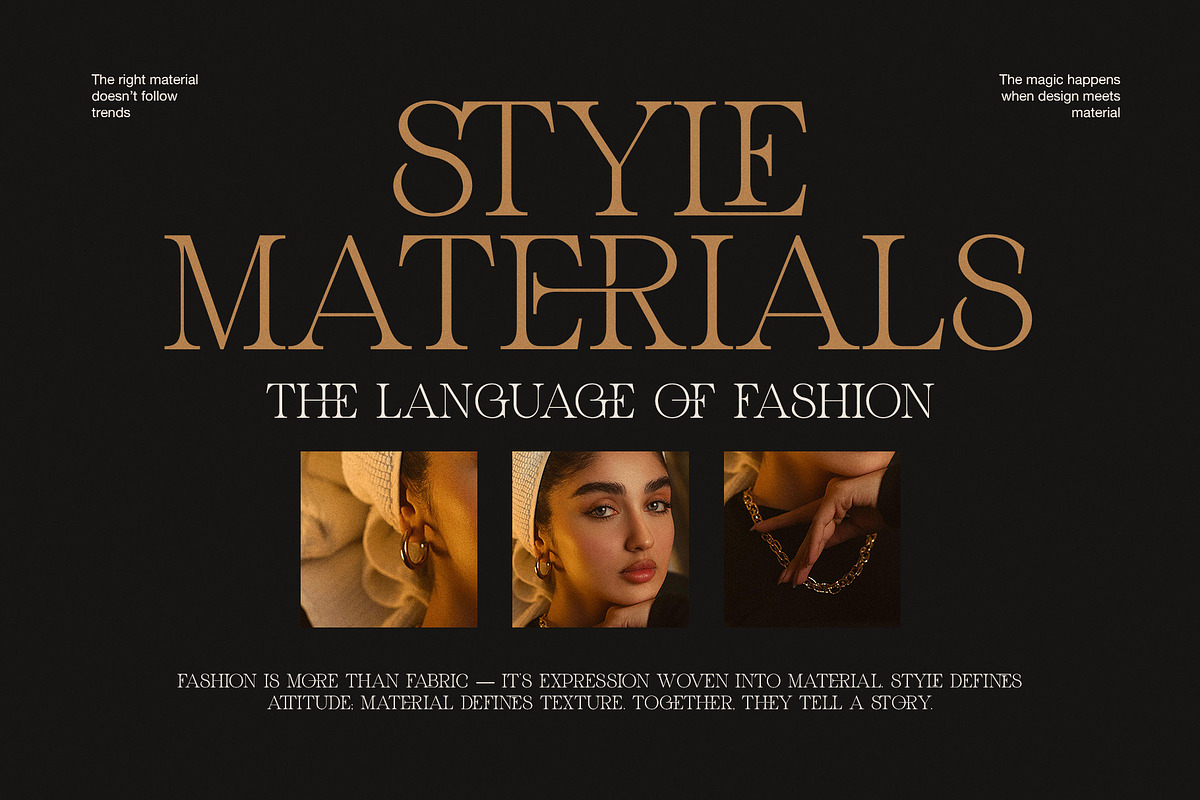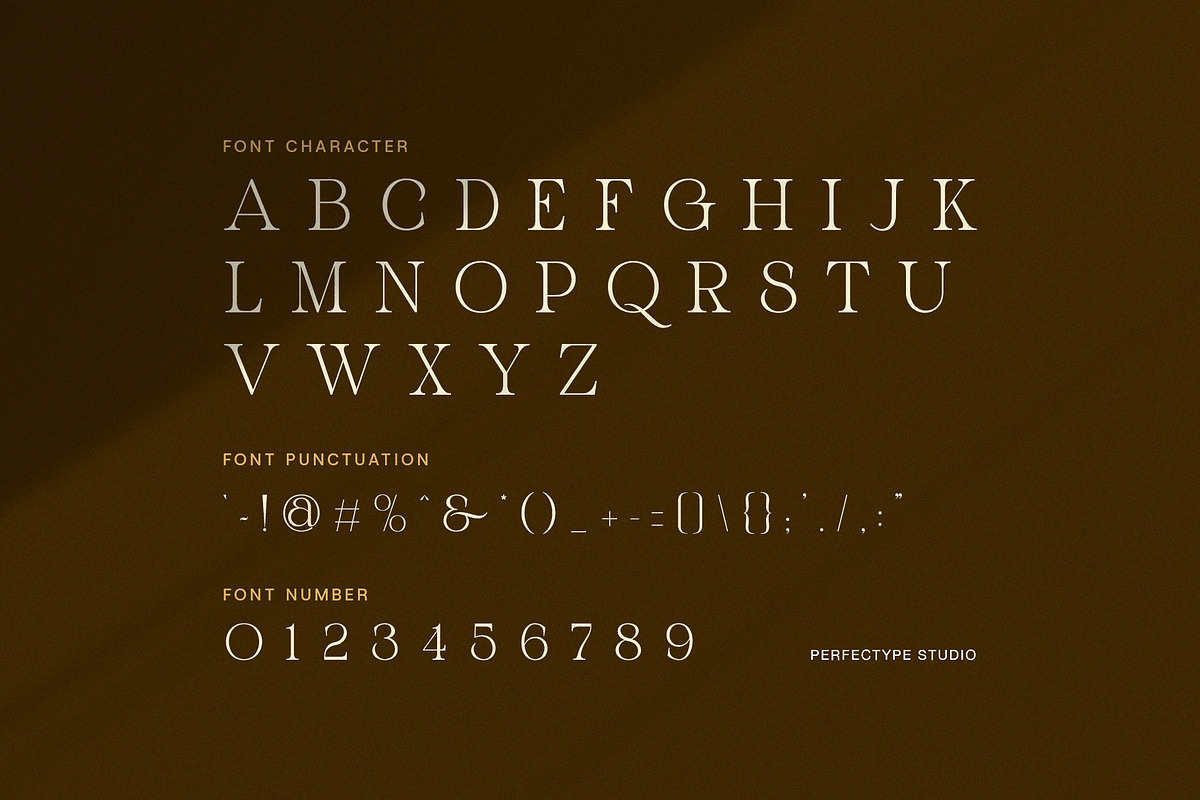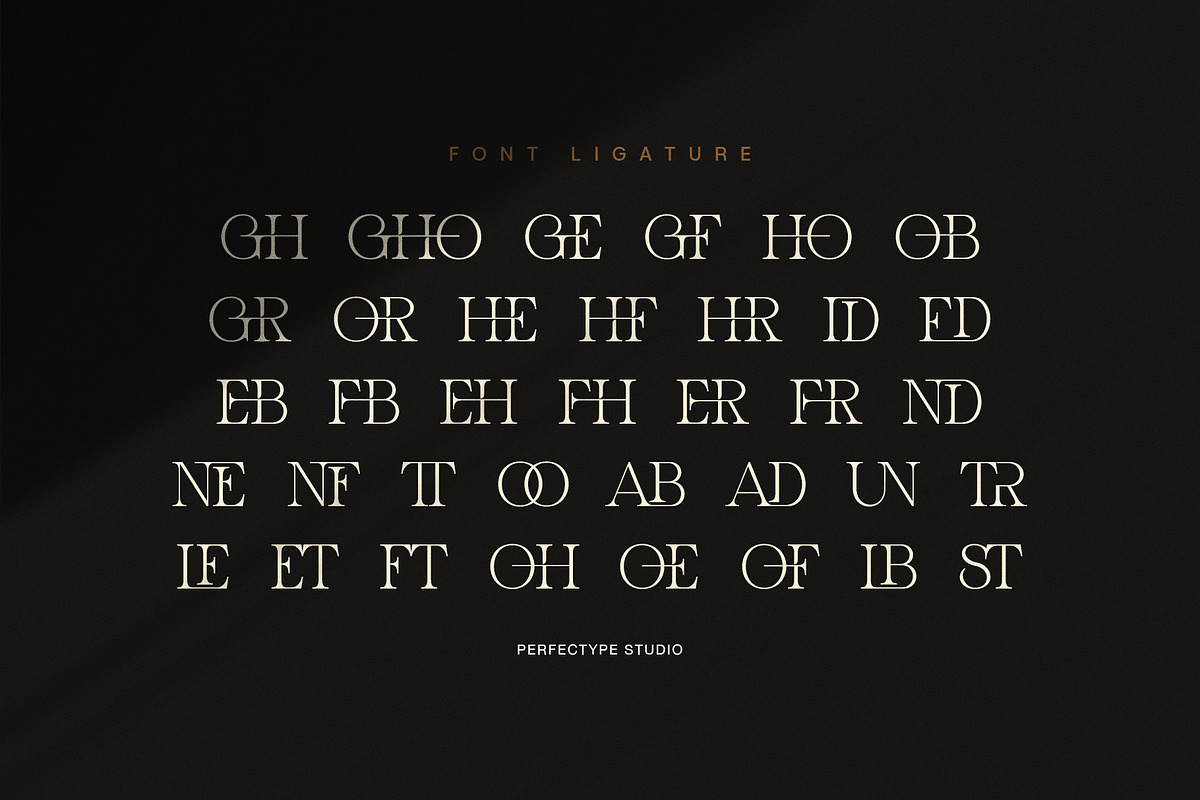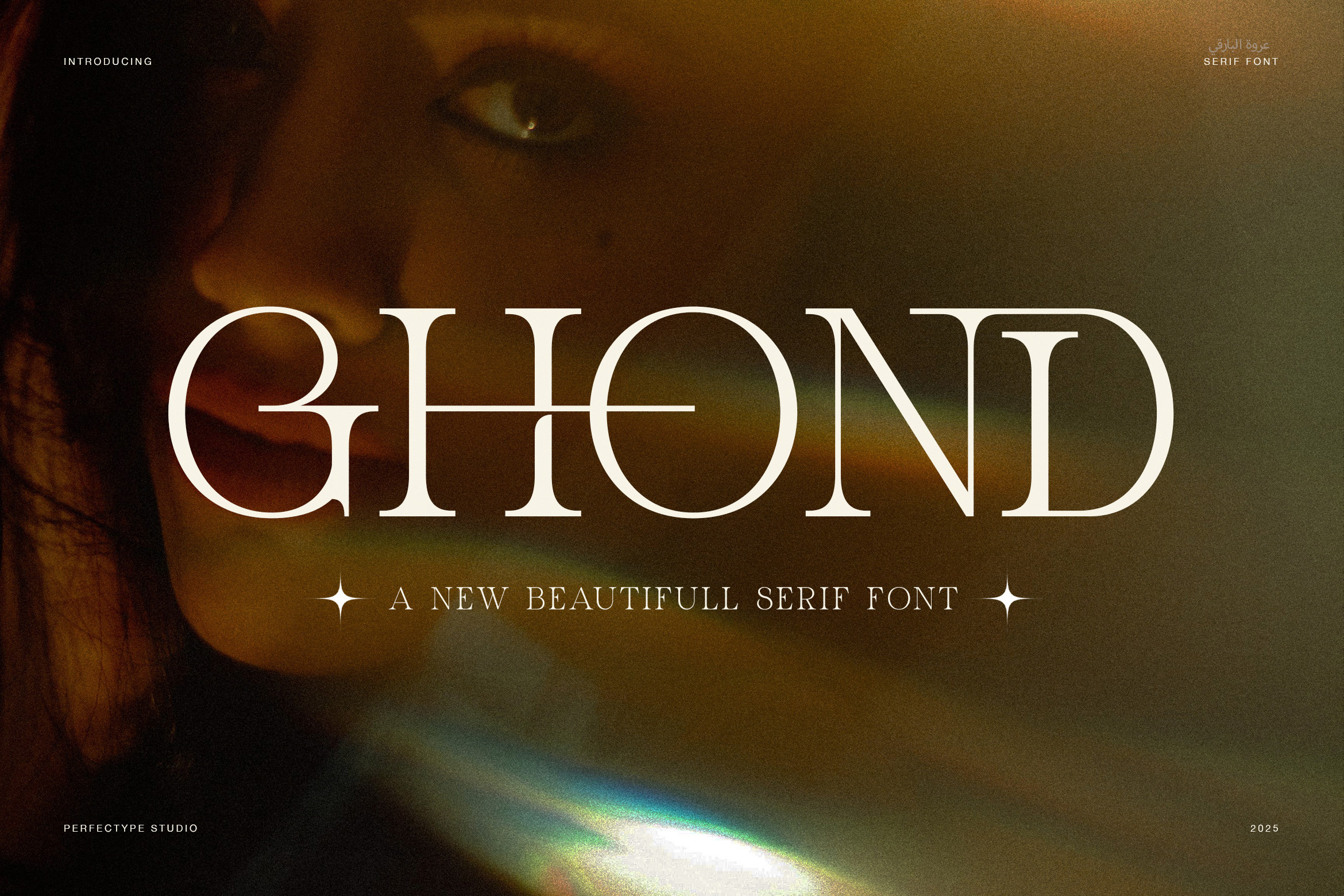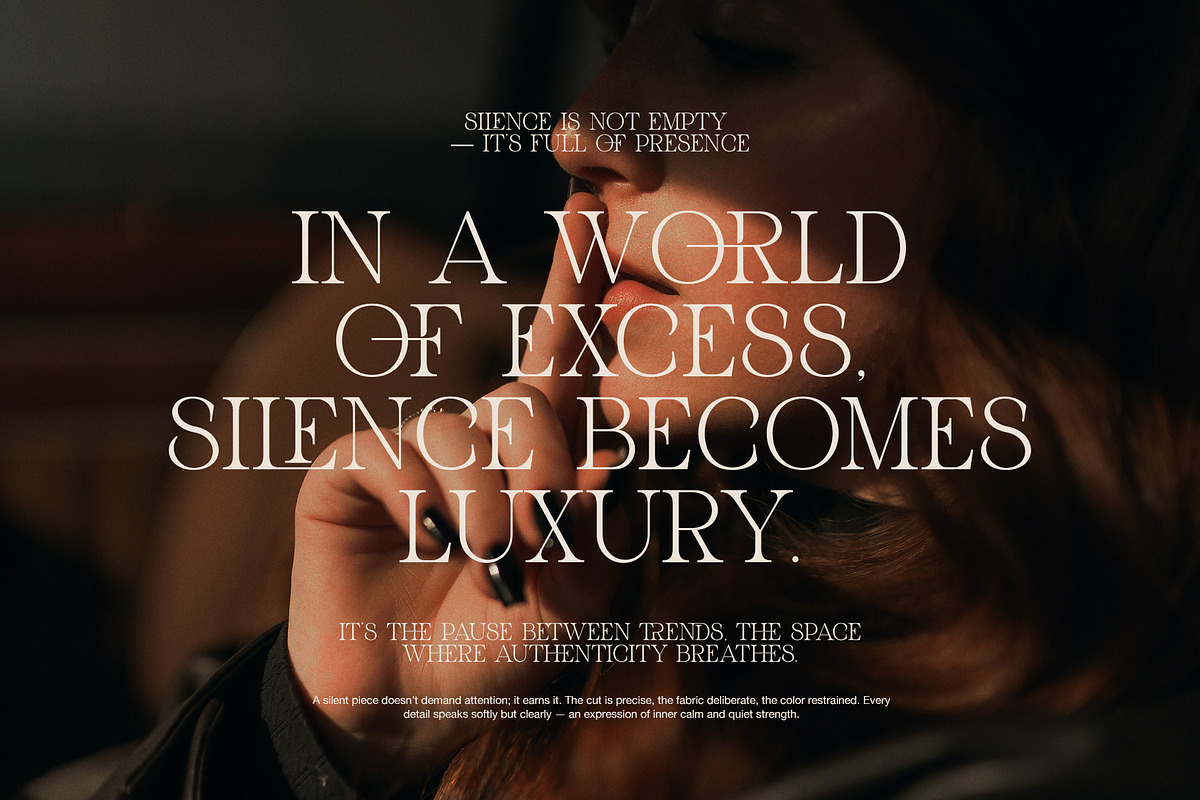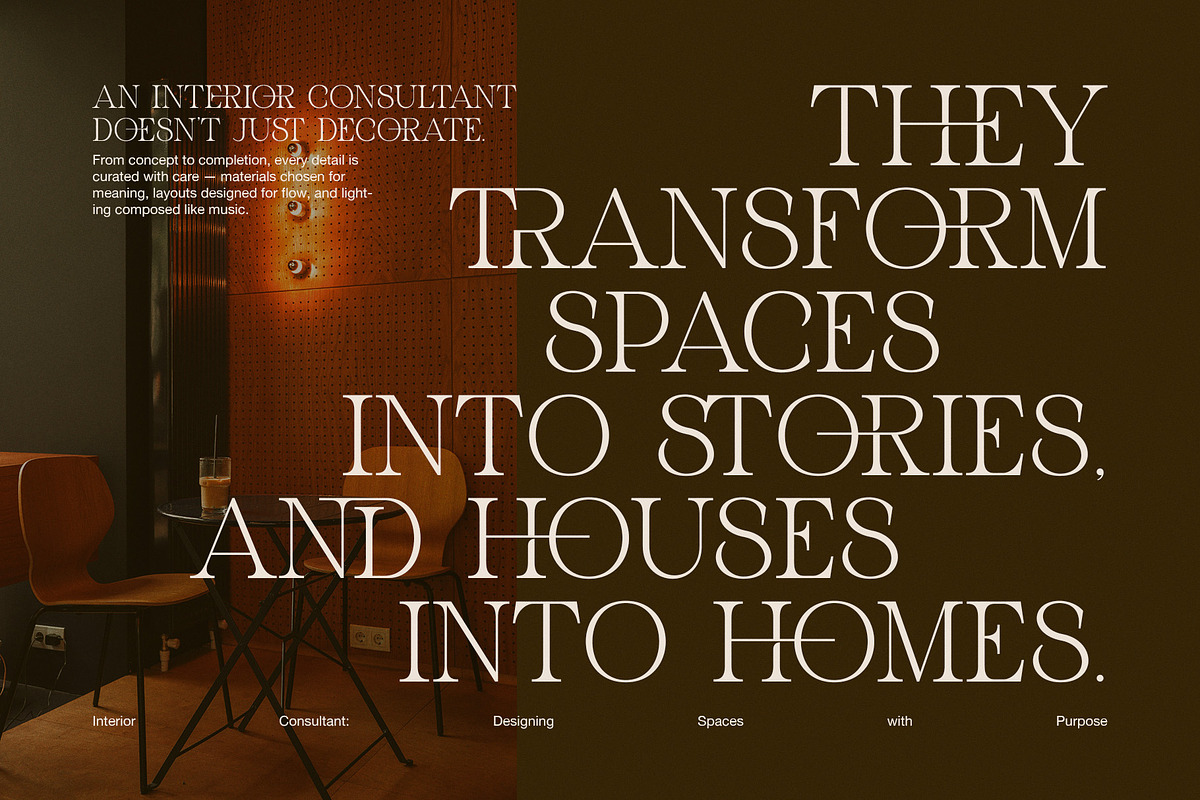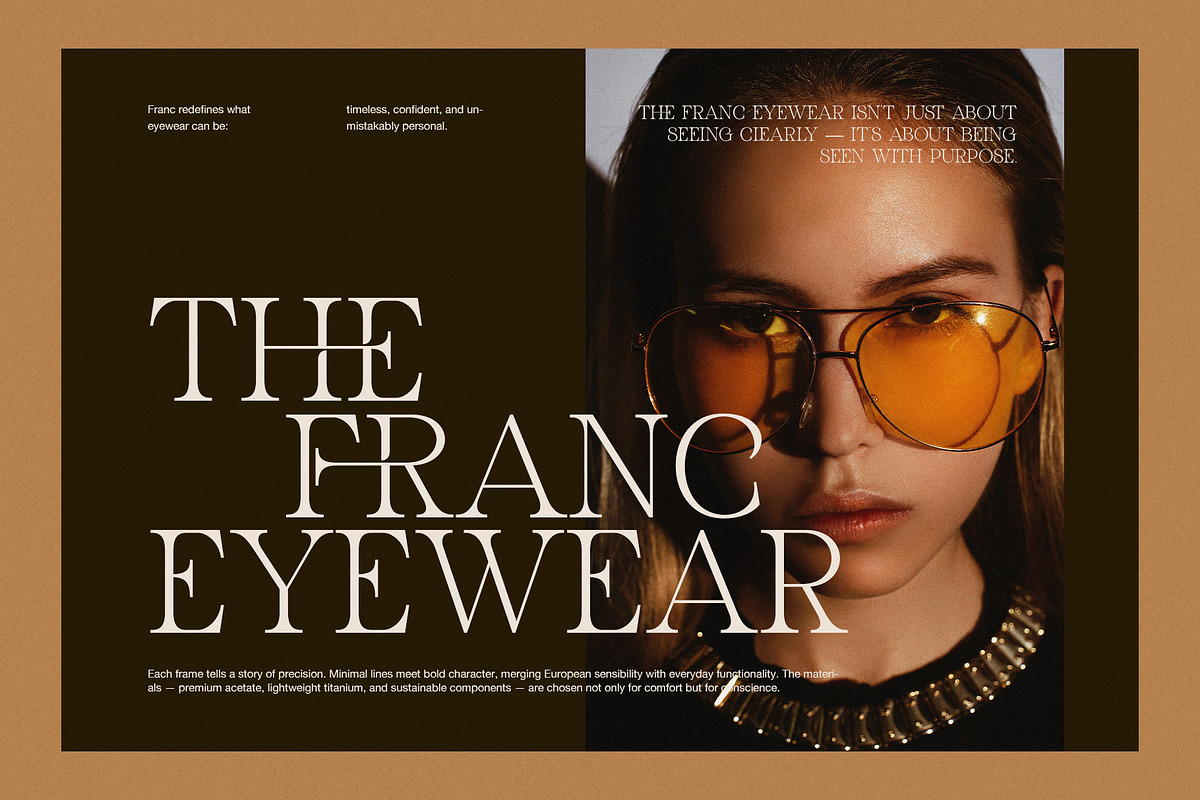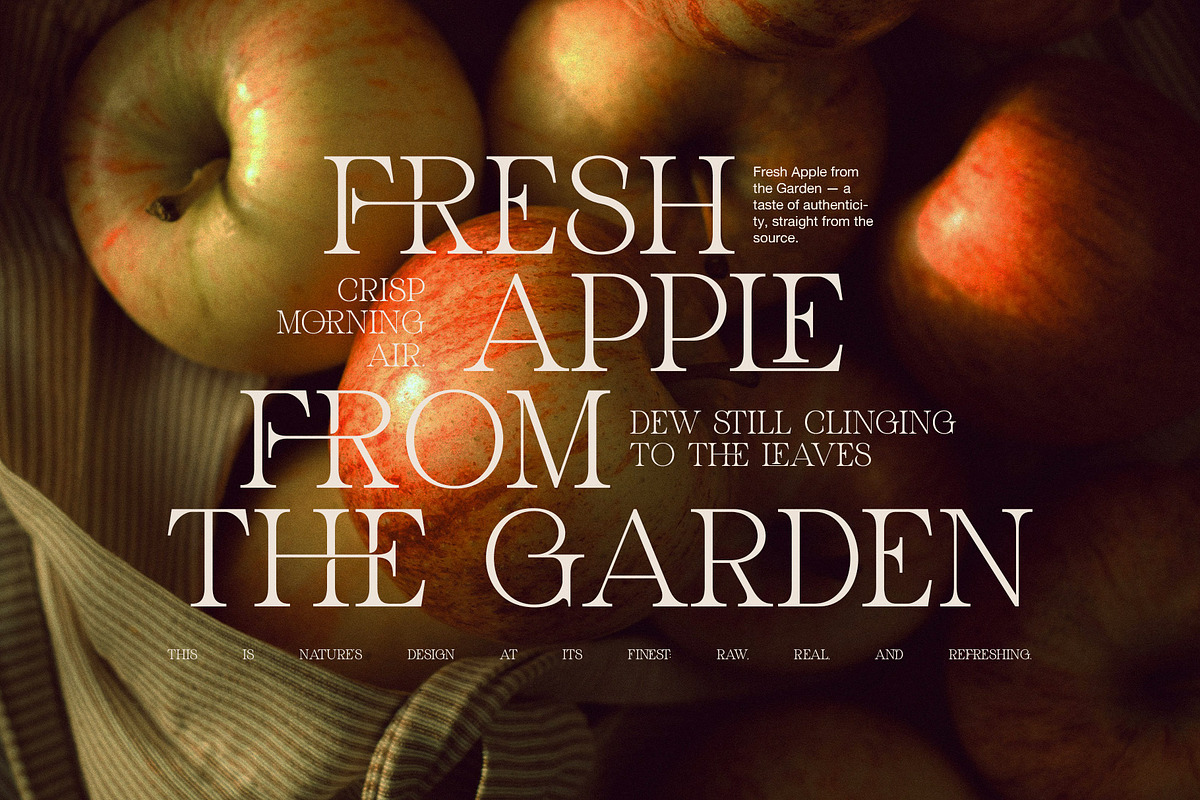
Ghond Modern Elegant Serif Font
Ghond is a modern elegant serif font that combines luxury, minimalism, and precision. Each letterform features graceful curves and geometric balance, making it perfect for designers seeking a refined, high-end aesthetic. The font’s clean structure and unique ligatures give it a distinctive look that enhances sophistication and style.
Because of its versatility, Ghond Serif Font fits beautifully in a wide range of design applications. It adds elegance to brand identities, magazine layouts, and luxury packaging while maintaining perfect readability. Moreover, its smooth proportions and balanced serifs make it ideal for both digital and print use.
You can use Ghond in projects that require timeless charm and modern edge:
Luxury Branding – perfect for fashion, architecture, and jewelry.
Editorial Design – ideal for magazine titles, articles, and headlines.
Packaging Design – great for cosmetics, perfumes, and boutique products.
Website Headers – stylish choice for minimal and luxury websites.
Wedding & Invitations – adds an elegant, romantic impression.
Each stroke in Ghond blends bold structure with subtle contrast, giving every word a cinematic and artistic presence. Its alternate characters and ligatures create beautiful compositions, ensuring your typography stands out while staying refined. Furthermore, it’s built to deliver clarity at any size, from delicate body text to bold headlines.
Choose Ghond Modern Elegant Serif Font to elevate your visual identity with a font that blends tradition and innovation. Its harmony of structure and sophistication makes it a must-have for every designer who values timeless beauty and premium typography.